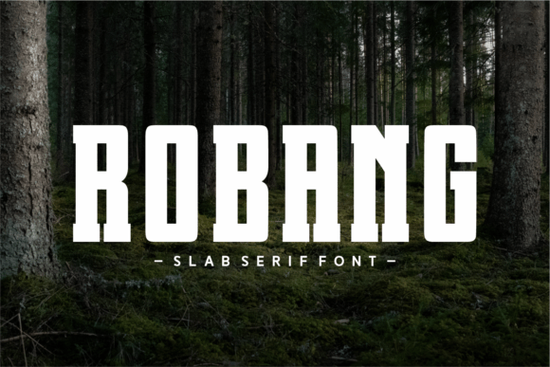
If you're looking for a bold, sporty slab serif that works just as well on a t-shirt chest print as it does on a craft fair banner or boutique packaging, Robang Font specifically its standout style Varsity is worth your attention. It’s not just another all-caps display font. It’s built with real-world use in mind: tight spacing for impact, generous x-height for legibility at small sizes, and a condensed structure that holds up beautifully on curved surfaces like mugs or tote bags.
What kind of projects is Robang Font actually good for?
Varsity isn’t trying to be everything. It’s focused and that focus makes it reliable. You’ll see it shine where clarity, energy, and a touch of collegiate charm matter:
- Apparel design: Think team tees, gym merch, or summer camp hoodies especially when you need strong, readable text across fabric prints.
- Packaging & labels: Its chunky yet balanced letterforms hold up on product stickers, jam jars, or handmade soap tags even at 12–16pt sizes.
- Digital signage & posters: Whether it’s a local coffee shop’s seasonal menu board or a school event flyer, Varsity fills space without crowding it.
- Craft projects: From vinyl-cut wall decals to Cricut-ready SVG files, the clean outlines and consistent stroke weight make cutting and weeding straightforward.
How does it compare to other slab serifs?
Unlike some slab serifs that lean heavily into retro diner kitsch or ultra-minimalist geometry, Robang Font sits comfortably between vintage warmth and modern utility. The subtle flaring at terminals and gentle curve in letters like “S” and “C” add quiet character not gimmickry. And because it’s designed as an all-caps family (with no lowercase variants), it avoids the awkwardness of mixing case styles in headlines or logos.
You’ll also notice it doesn’t rely on excessive ornamentation. No drop shadows, no forced distressing just solid, intentional shapes. That makes it easier to pair with simpler sans serifs (like Montserrat or Poppins) for body text, or layer with handwritten accents for contrast without visual noise.
Is it beginner-friendly for crafters and small businesses?
For print-on-demand sellers, this matters: fewer variables mean more predictable results across platforms like Printful or Redbubble. We tested it across several mockup generators, and Varsity held its weight on both light and dark apparel backgrounds without needing manual kerning adjustments.
Where does it fit in a broader font collection?
If your current go-to slab serif feels either too stiff (like Rockwell) or too playful (like Cooper Black), Robang Fonts offers a middle ground structured but friendly, athletic but not aggressive. It pairs naturally with neutral sans serifs for balance, and even works alongside modest script fonts for contrast in greeting cards or boutique branding.
A few practical notes before you download
- Varsity is an all-caps font so plan your layout accordingly. It’s not meant for long paragraphs.
- Works best at 24pt and larger for headlines; still legible down to ~14pt on high-res print or crisp vinyl cuts.
- Includes basic punctuation and numerals but no multilingual glyphs or extended Latin characters beyond standard Western European support.
- Test it on your intended background color first: its bold weight can sometimes bleed slightly on very thin fabrics or low-ink digital prints.
If you’re building a summer-themed collection, launching a new apparel line, or designing for a local sports league or school group, Robang Font gives you a confident, no-fuss typographic anchor. It doesn’t shout but it holds space with quiet authority. And that’s often exactly what a small brand or handmade project needs.